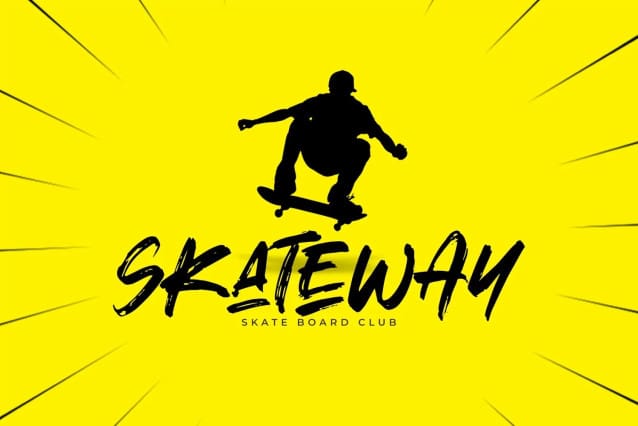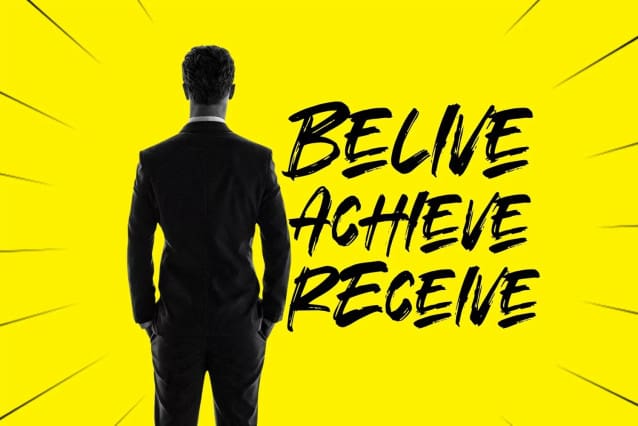
Strong Young Font
Strong Young Font is a modern brush font. StrongYoung font suitable for logo, branding, greeting card, poster and any design that you create…!